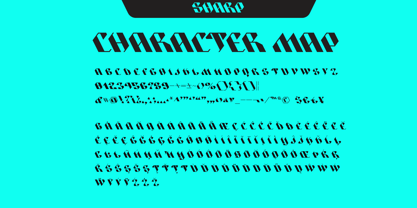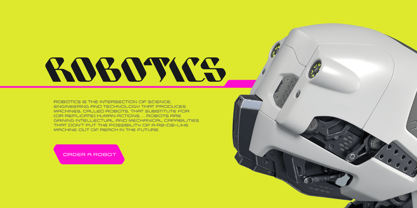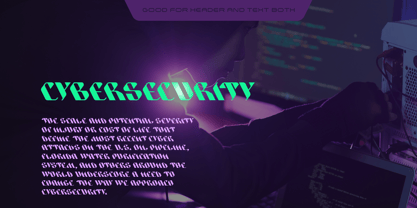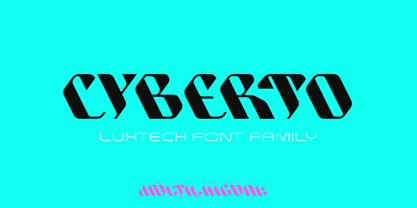
Cyberto
por Sentavio
La familia tipográfica Cyberto fue diseñada por Dmytro Poliakh y publicada por Sentavio. Cyberto contiene 2 estilos y opciones de paquete familiar.
CYBERTO is font family which helping to create futuristic hi-tech and cyberpunk atmosphere and style. It is good looking as header and as text both. Use it in your projects in such areas as robots & androids, cyberpunk, hi-tech, future, virtual reality, space, army, games and many others.
Diseñadores: Dmytro Poliakh
Editorial: Sentavio
Fundición: Sentavio
Propietario del diseño: Sentavio